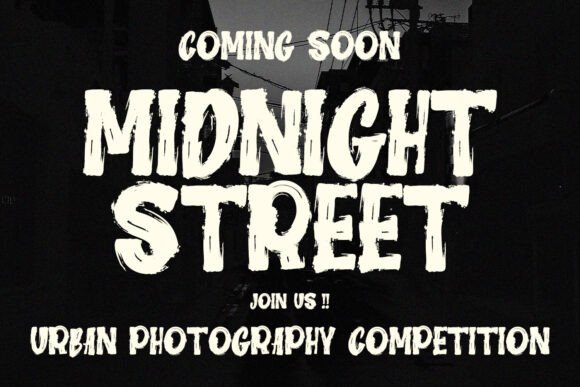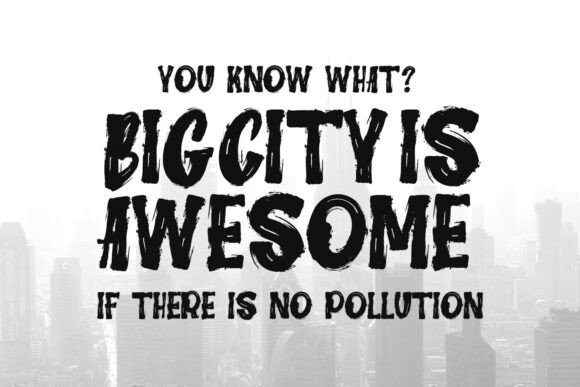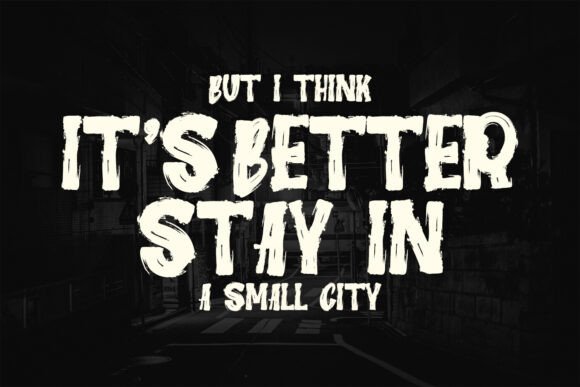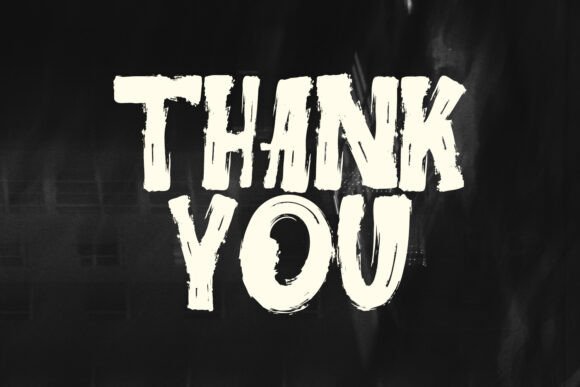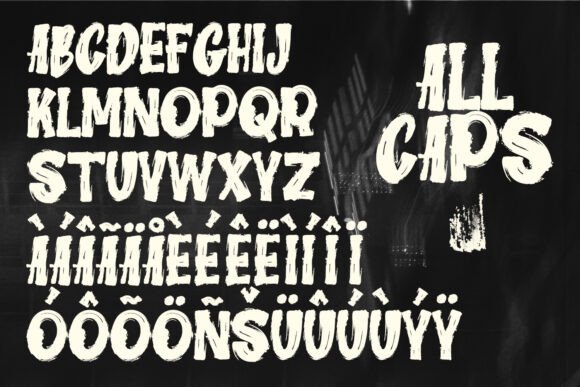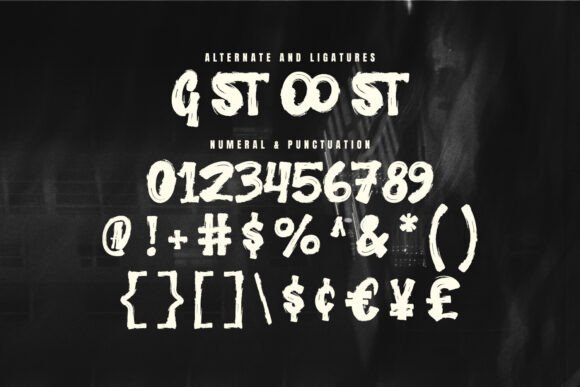
Introduction to Lostin Grifes Font
As a designer, you’ve been there – staring at a blank canvas, trying to find the perfect font to bring your creative project to life. And then, like a bolt of lightning, inspiration strikes. You envision a bold, gritty font that screams raw energy and attitude. That’s where the Lostin Grifes Font comes in – a game-changing design resource that’s about to take your projects to the next level.
With its dry brush strokes and hand-painted vibes, this high-quality font is perfect for designers who want to add an edgy touch to their work. Whether you’re creating posters for a music festival, designing streetwear branding, or crafting horror-themed visuals, the Lostin Grifes Font is the ultimate design companion. And the best part? It’s available for free download, complete with a transparent background that lets you get creative with your design.
So, what makes the Lostin Grifes Font so valuable for designers? For starters, its unique texture and rough edges bring an intense visual punch to any design. And with its high-quality design, you can trust that your work will stand out from the crowd. Whether you’re a seasoned pro or just starting out, this font is a must-have in your design arsenal.
Key Features of Lostin Grifes Font
- High-quality design resource for creative projects, available for free download
- Unique, hand-drawn style with a transparent background for easy customization
- Perfect for use in logos, branding, and other design elements where a distinctive, creative look is needed
- Lostin Grifes Font is a versatile design resource that can be used in a variety of applications, from digital to print
Honest Review: Lostin Grifes Font
I recently stumbled upon the Lostin Grifes Font and was excited to dive in and see what it had to offer. As a designer, I’m always on the lookout for high-quality design resources that can elevate my creative projects.
One of the standout features of this font is its high-quality design and versatility. I was impressed by its range of styles, from elegant to playful, making it perfect for a variety of creative projects. The font also features a transparent background, which is always a bonus when it comes to design flexibility.
- ✨ High-quality design and versatility
- ✨ Transparent background for design flexibility
- ⚠️ Limited font sizes available
Overall, I’m impressed with the Lostin Grifes Font and would recommend it to designers looking for a high-quality design resource for their creative projects. While it may have some limitations, its versatility and free download option make it a great addition to any design arsenal.
Lostin Grifes Font is perfect for a variety of creative projects, including logos, business cards, brochures, and social media graphics. Its clean and modern design makes it ideal for any project that requires a professional and sophisticated look.